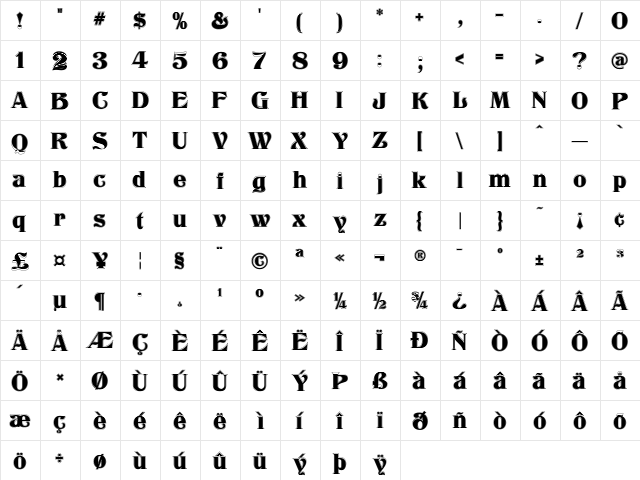
Klarissa Contour Regular
Design Context for Klarissa Contour Typeface
Klarissa Contour offers clean, dependable letterforms without strong stylistic allegiance, making it a practical choice for designers who need flexibility.
Pro Tip: Use Klarissa Contour in both headline and body roles to test its range before committing to a single application.